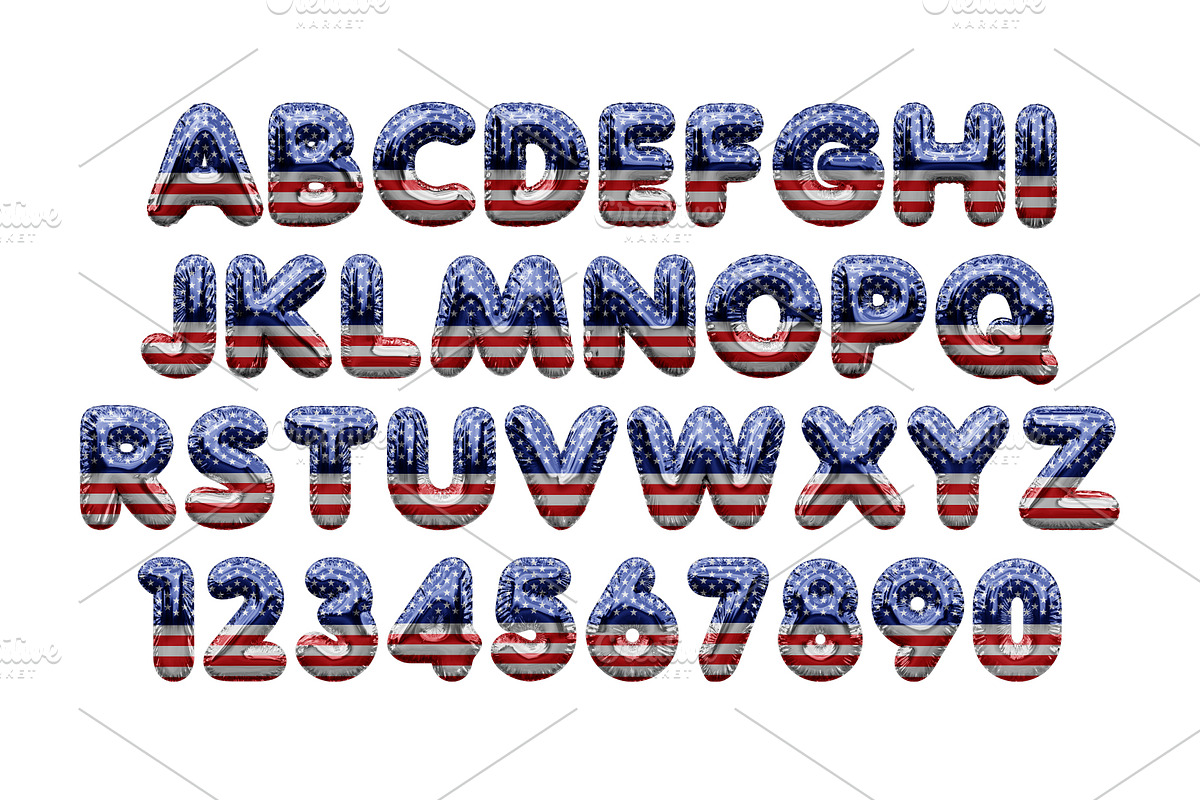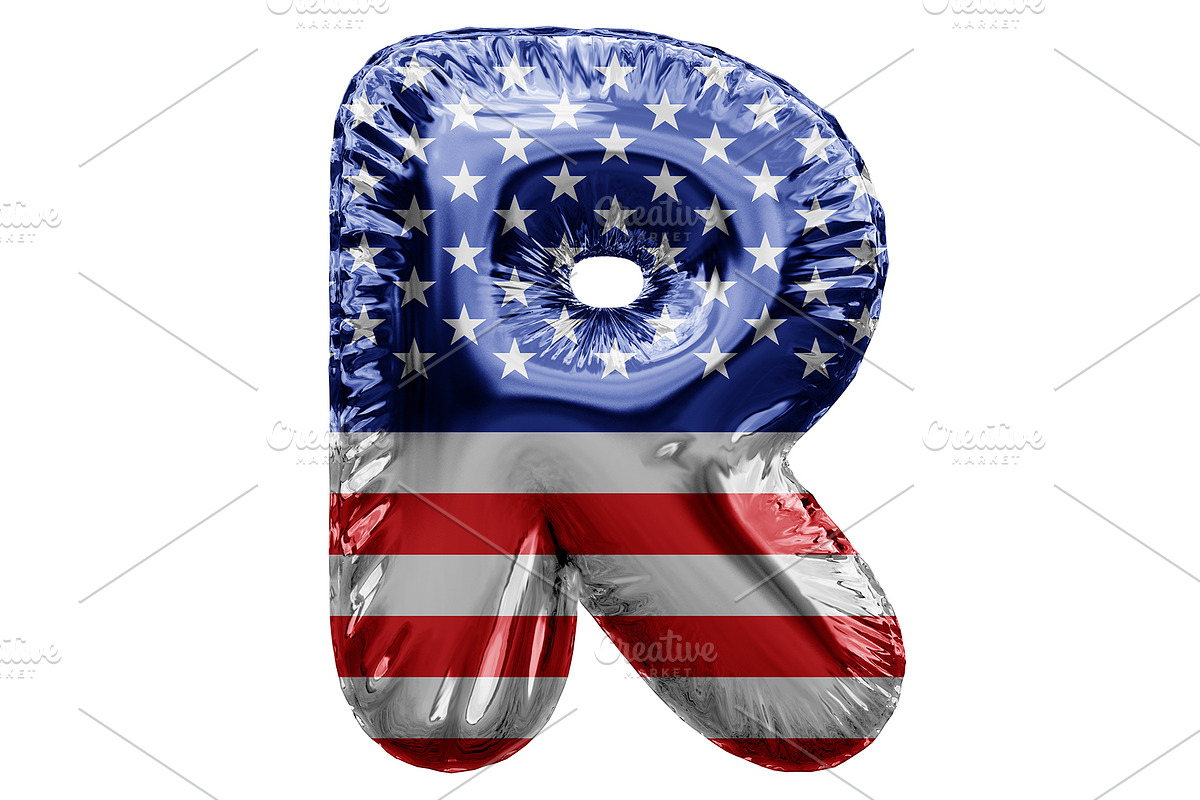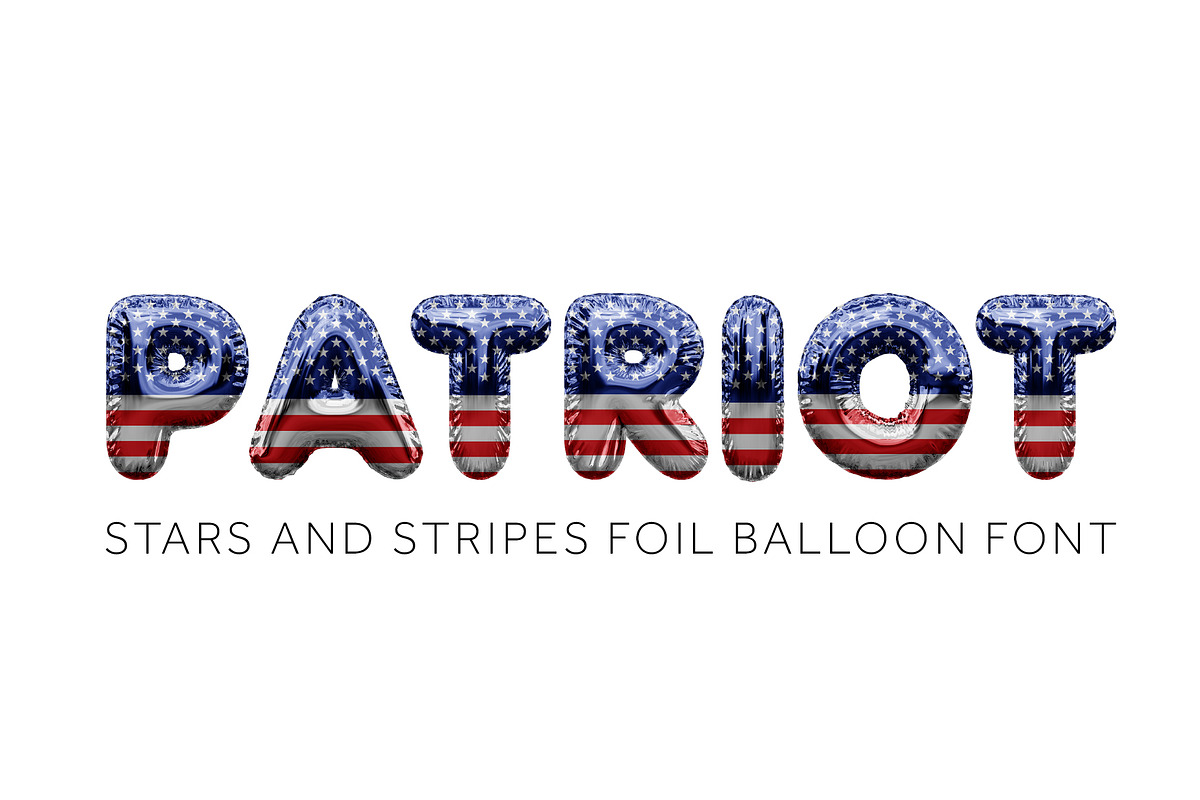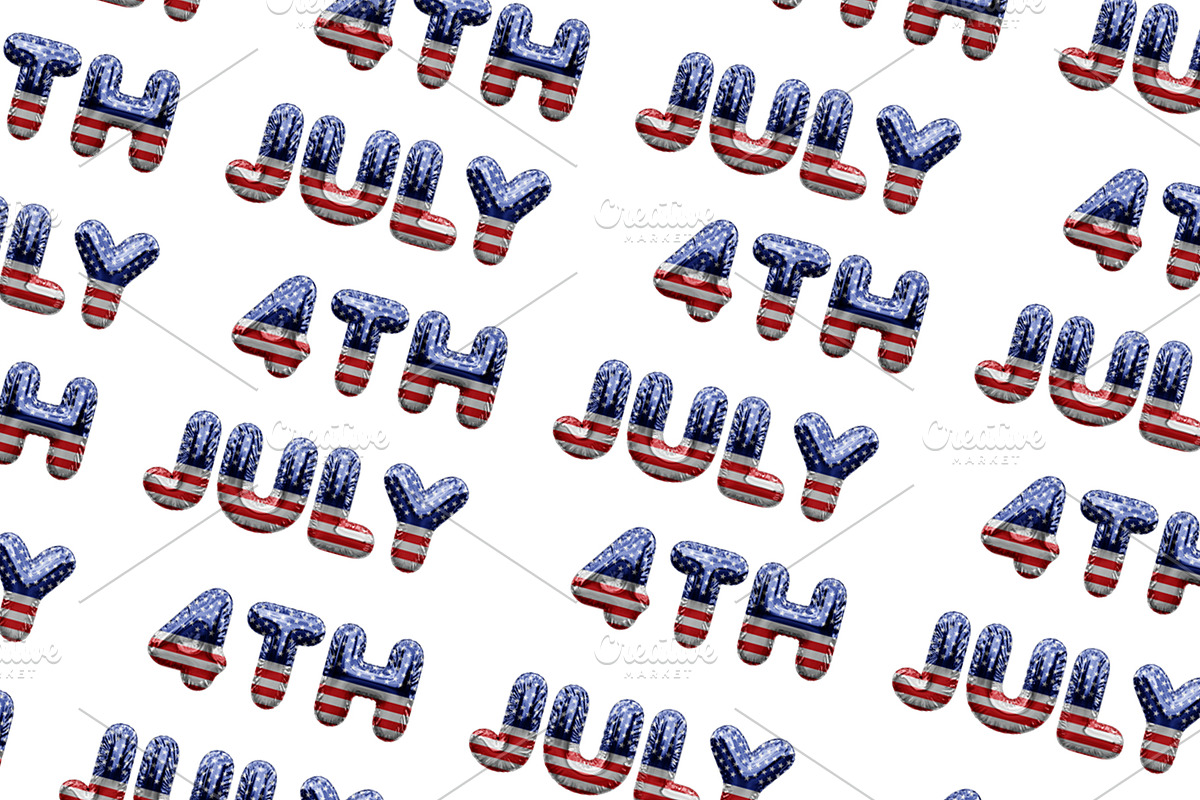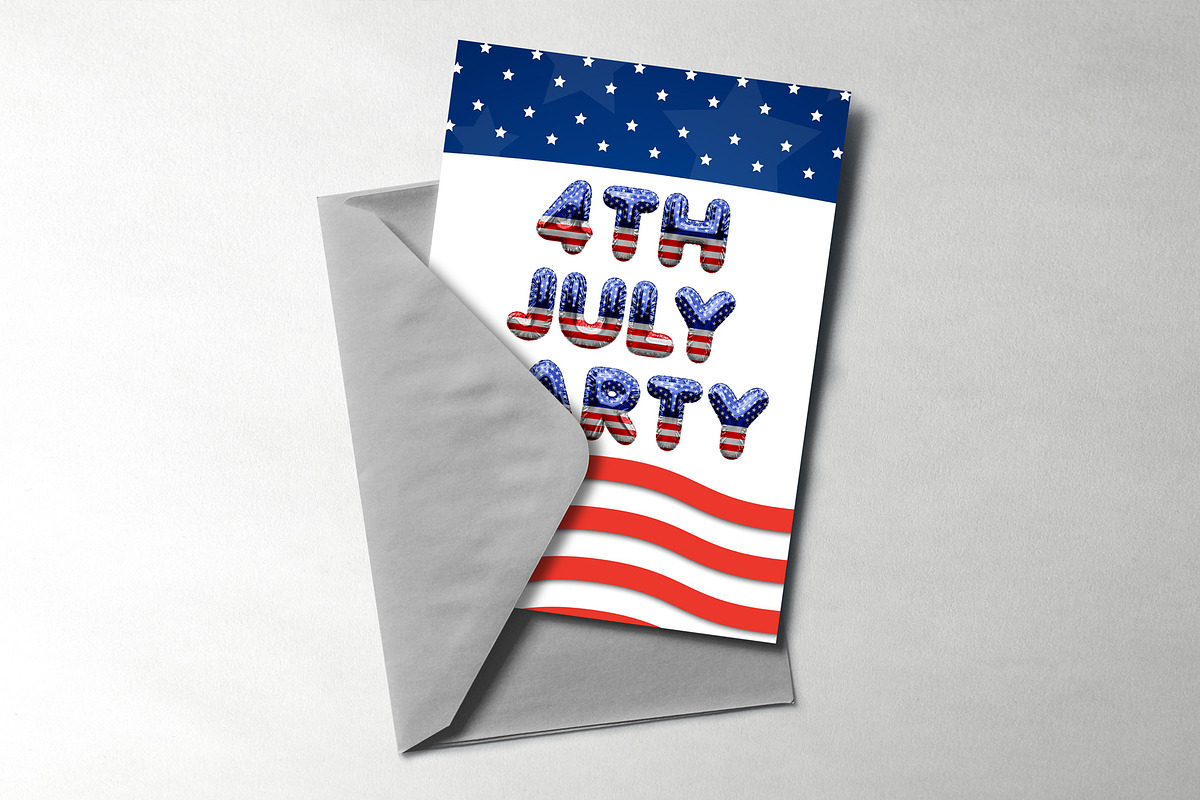
PATRIOT - USA flag foil balloon font
PATRIOT colour opentype font
PATRIOT is a bold stars and stripes foil balloon 3D font. Designed and made in 3D and transformed into a colour opentype font. Perfect for patriotic posters, party invites and all things American! Download and start typing!!